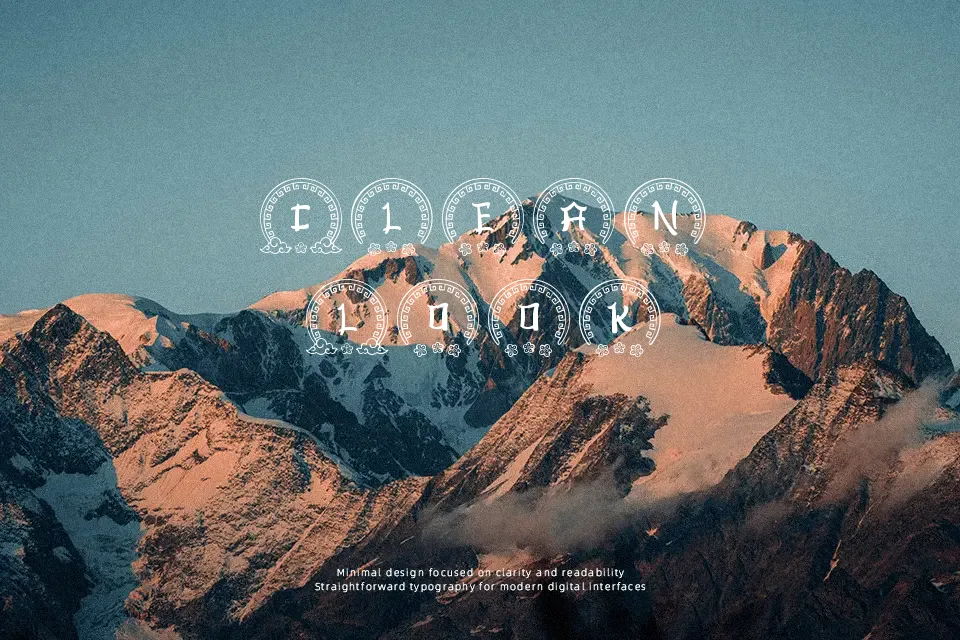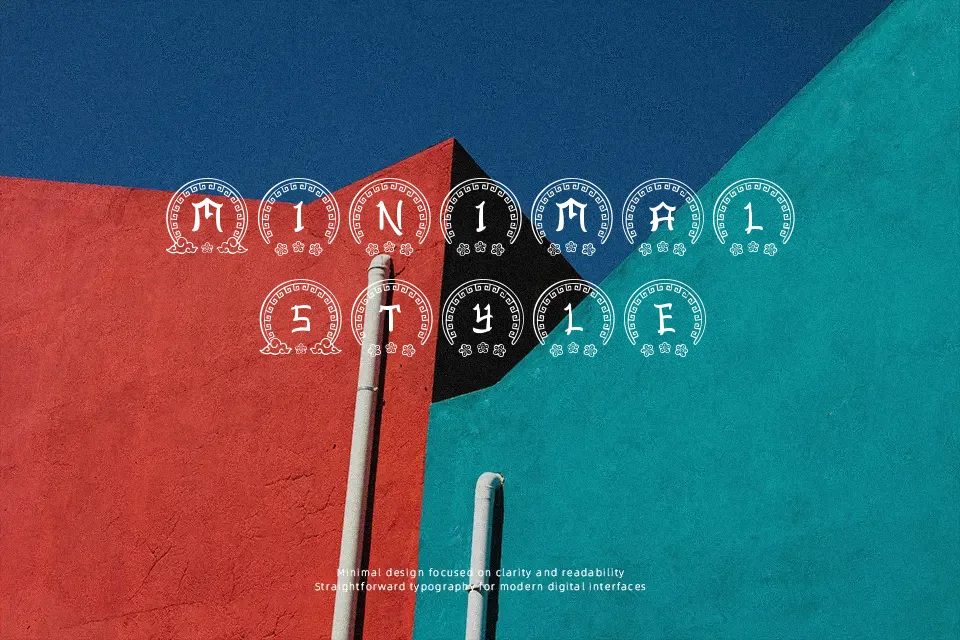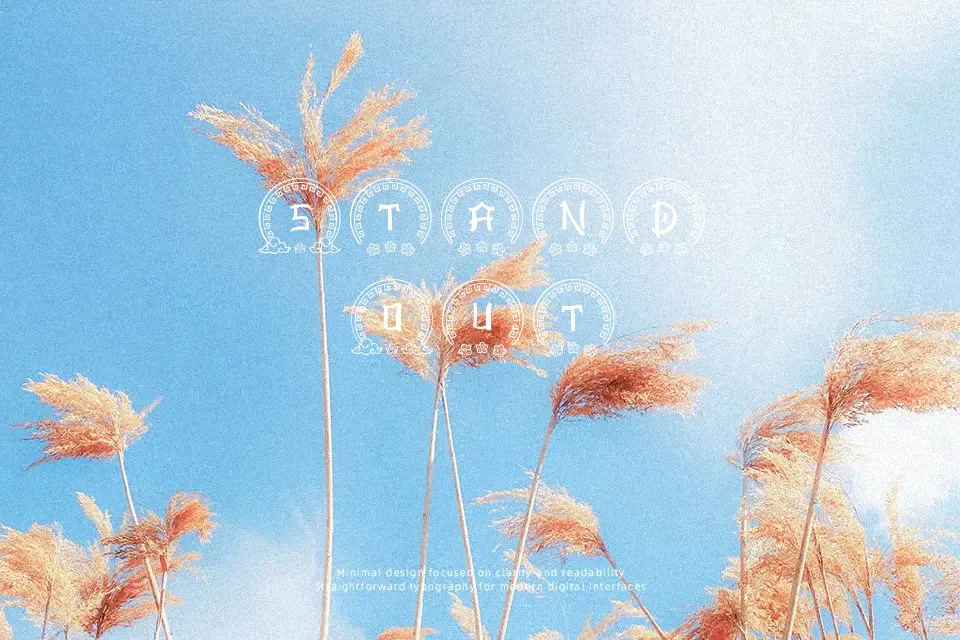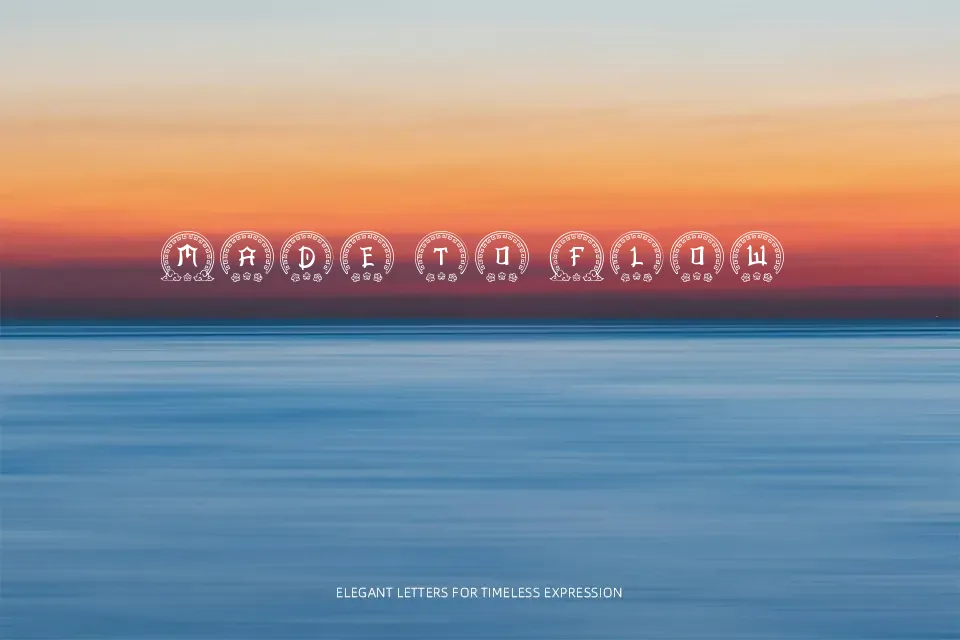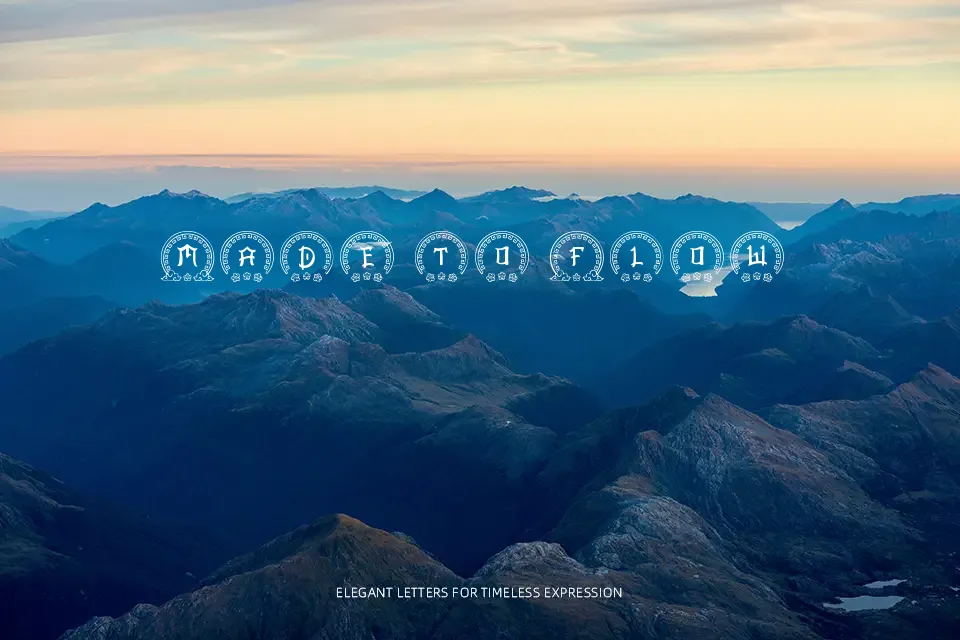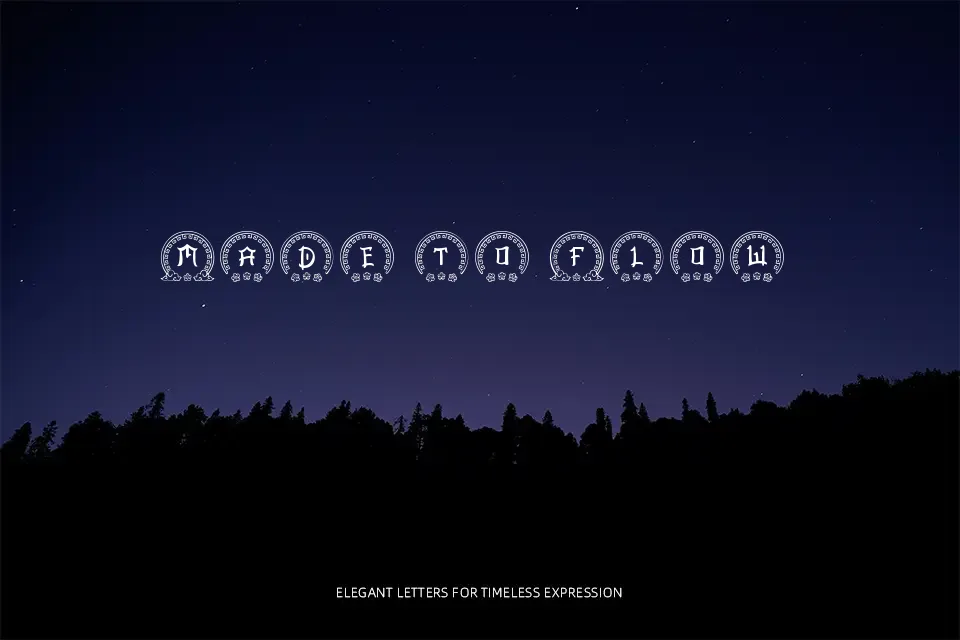
Ashito Chinese Monogram Font
Designed by Attype Studio
Built around bold, ornamental strokes that echo traditional Chinese brushwork, Ashito Chinese Monogram carries an unmistakably festive weight. Each glyph is constructed as a compact monogram unit — dense, decorative, and visually self-contained — making individual characters function more like design marks than readable type. That structure works well for logo badges, Chinese New Year event materials, or themed packaging where a single prominent character needs to carry visual impact. However, the heavily stylized nature of each letterform means readability drops fast in sequences longer than two or three characters. Running it as body copy or in small sizes is a genuine mistake — the details collapse and the character becomes illegible. This is a display-only font that earns its place when used as a focal point, not as supporting text.
Best For:- Chinese New Year greeting cards and social media posts
– Festive packaging labels and gift tag headers
– Cultural event posters and themed logo marks
– Single-character decorative badges or monogram stamps
Not Ideal For:- Extended body text or multi-line paragraphs
– Corporate branding requiring clean, legible wordmarks
– Small-size print applications (business cards, footnotes)
– Multilingual layouts mixing Latin and Chinese scripts
Perfect for branding, holiday, and logo, with a artistic and calligraphy style.